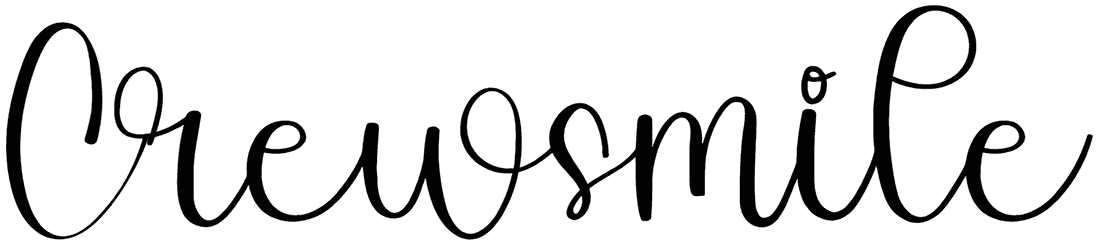
Crewsmile Font
When there is no room for any mistake, a magical script font the same as Crewsmile can be your savior and help you to design flawless artwork, including business cards, product packaging, movie posters, gift cards, or wedding invitations. This cursive calligraphy font comes with delicate characters, so it leads to a sense of momentum, softness, and precision.